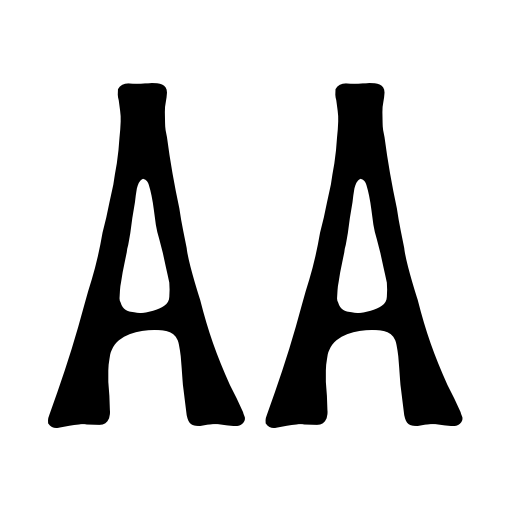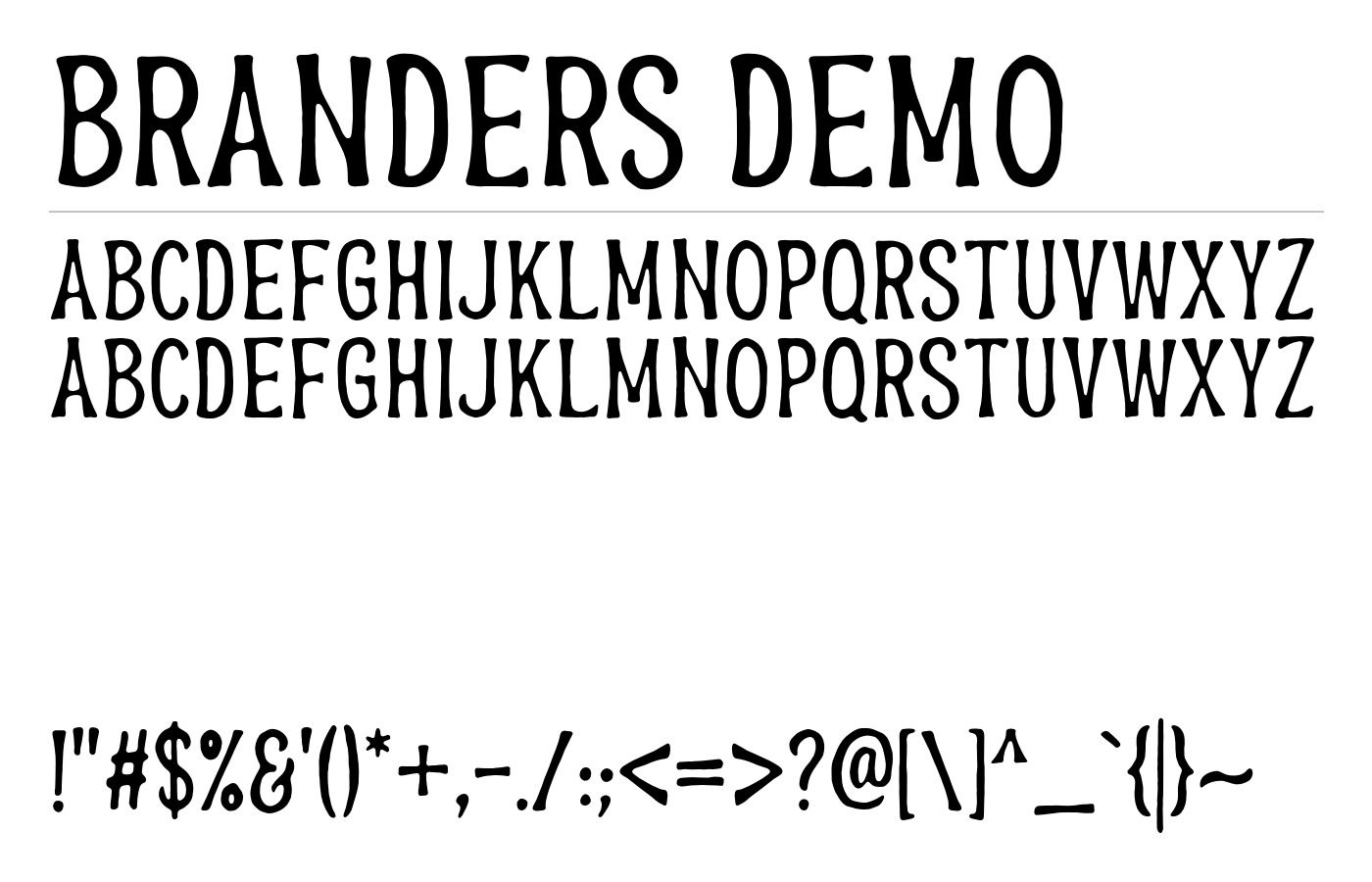
Branders DEMO is a tall, narrow sans serif font with a hand-drawn, slightly irregular style that gives it a playful and informal character. Its consistent stroke weight and quirky letter shapes make it perfect for casual branding, headlines, and creative projects that want to convey a friendly, approachable vibe without losing readability. This font stands out in packaging, posters, and websites where a unique, hand-crafted feel is desired.
Branders DEMO Font
About Branders DEMO Font